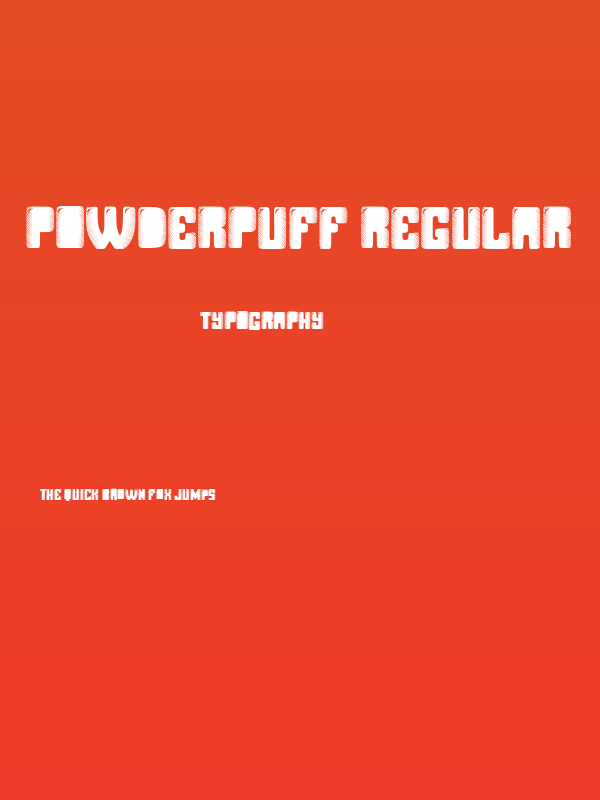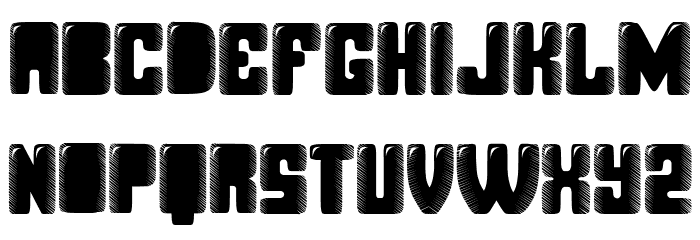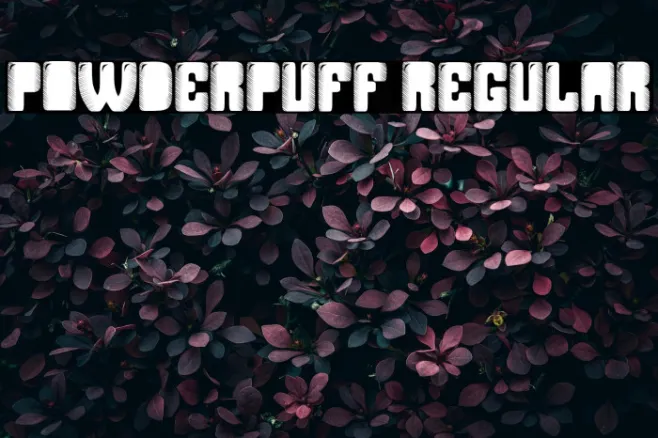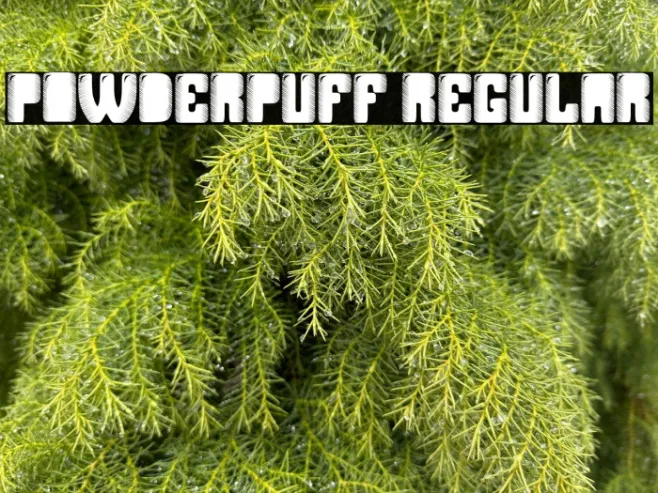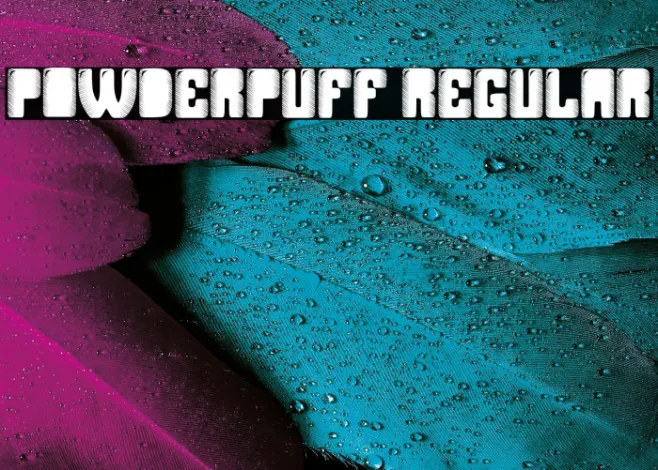
Powderpuff Regular Font
Powderpuff Regular Description
This font features a bold and playful design with a distinct 3D effect created by diagonal hatching. The characters are wide and have a strong presence, making them ideal for attention-grabbing headlines or titles. The uppercase letters are particularly striking, with a uniform thickness and a slightly rounded finish that adds a touch of softness to the otherwise robust appearance. The diagonal lines within each character add a sense of movement and depth, enhancing the overall visual impact. This font is perfect for projects that require a fun and dynamic look.
| Proposed Projects | Ideal for posters, event flyers, children's book covers, and branding materials that require a fun and dynamic aesthetic. |